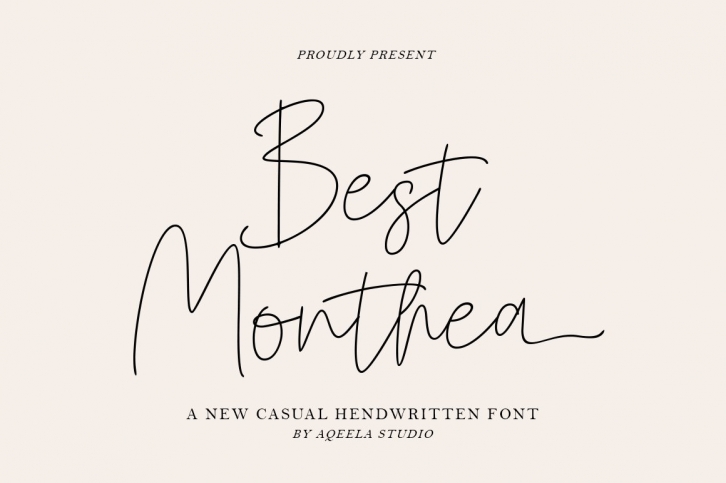
Best Monthea is a great font that was designed by Aqeela Studio. Imagine the amount of combinations you can create using this font! The archive is 19.44 MB and it was released on August 2, 2022. Best Monthea looks beautiful on wedding invitations, greeting cards, logos, posters, labels, t-shirt designs, logos, business cards and is perfect for use in ink or watercolor works, fashion, magazines, packaging and food menus, children's books and more!